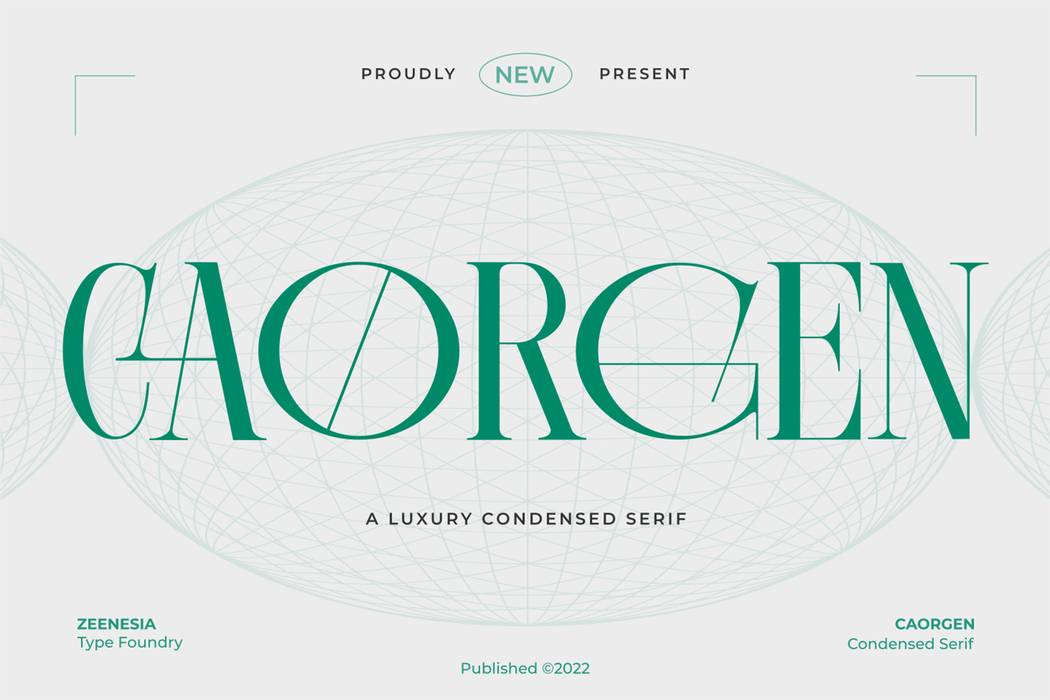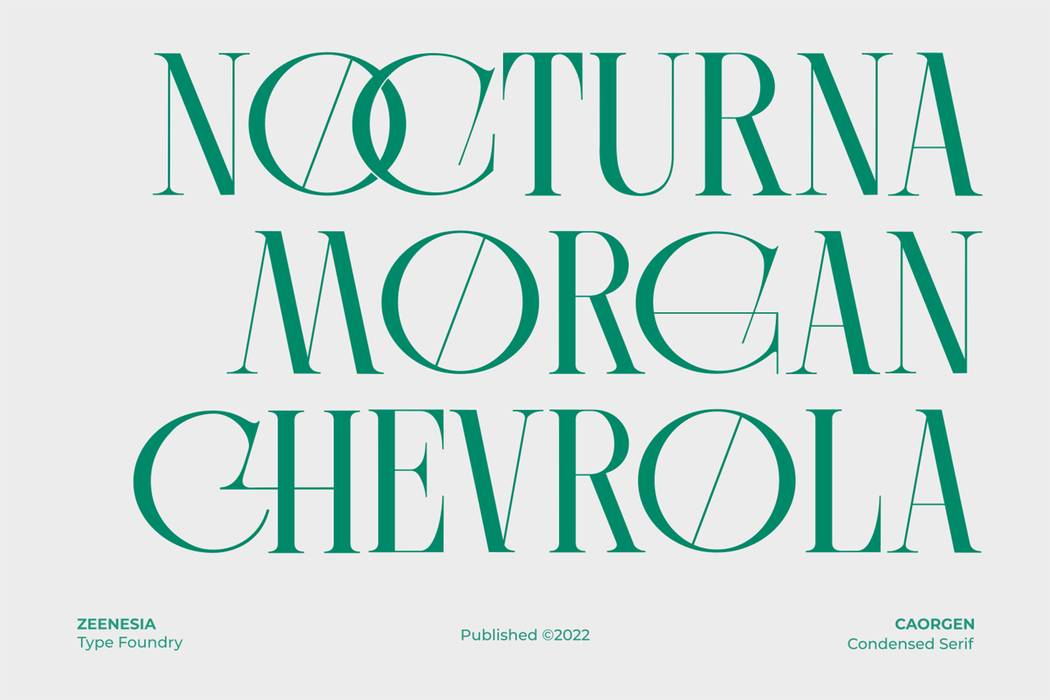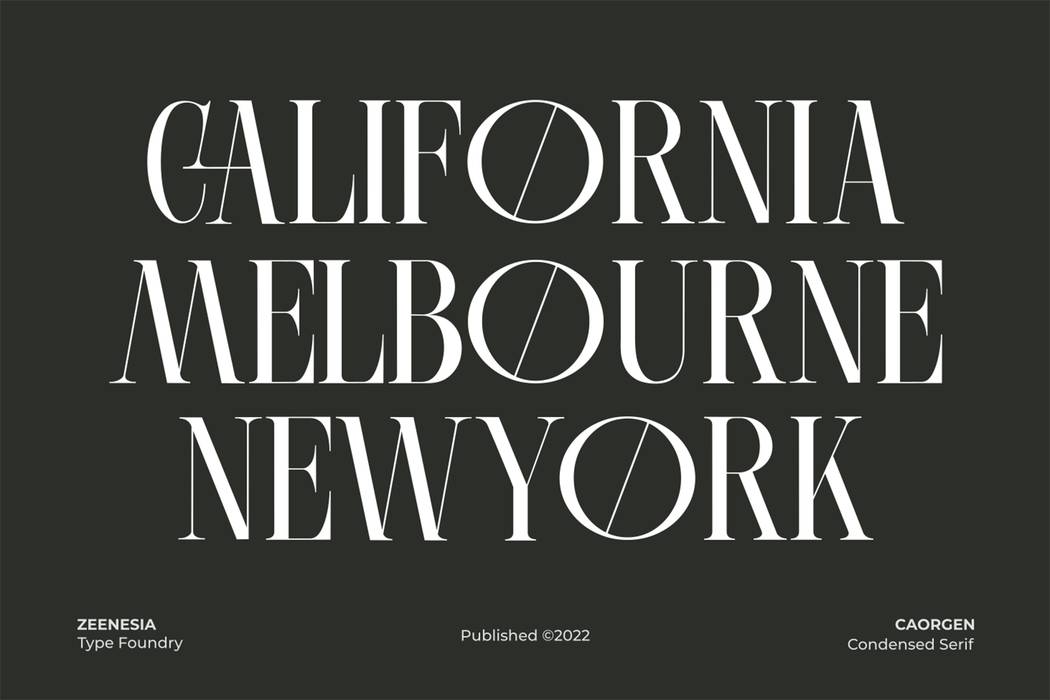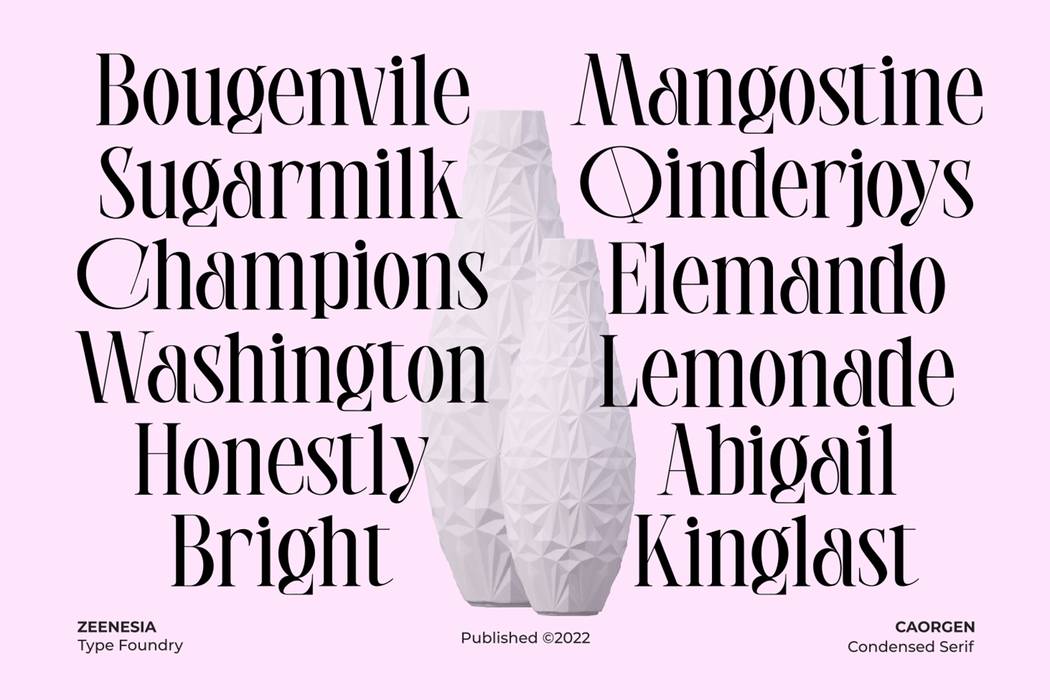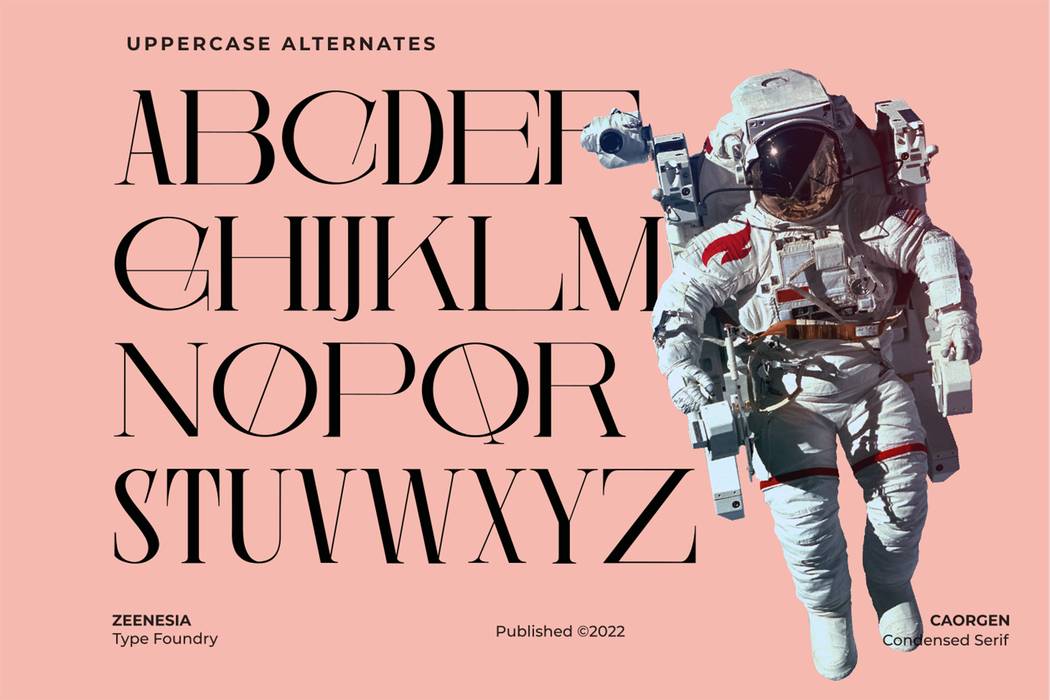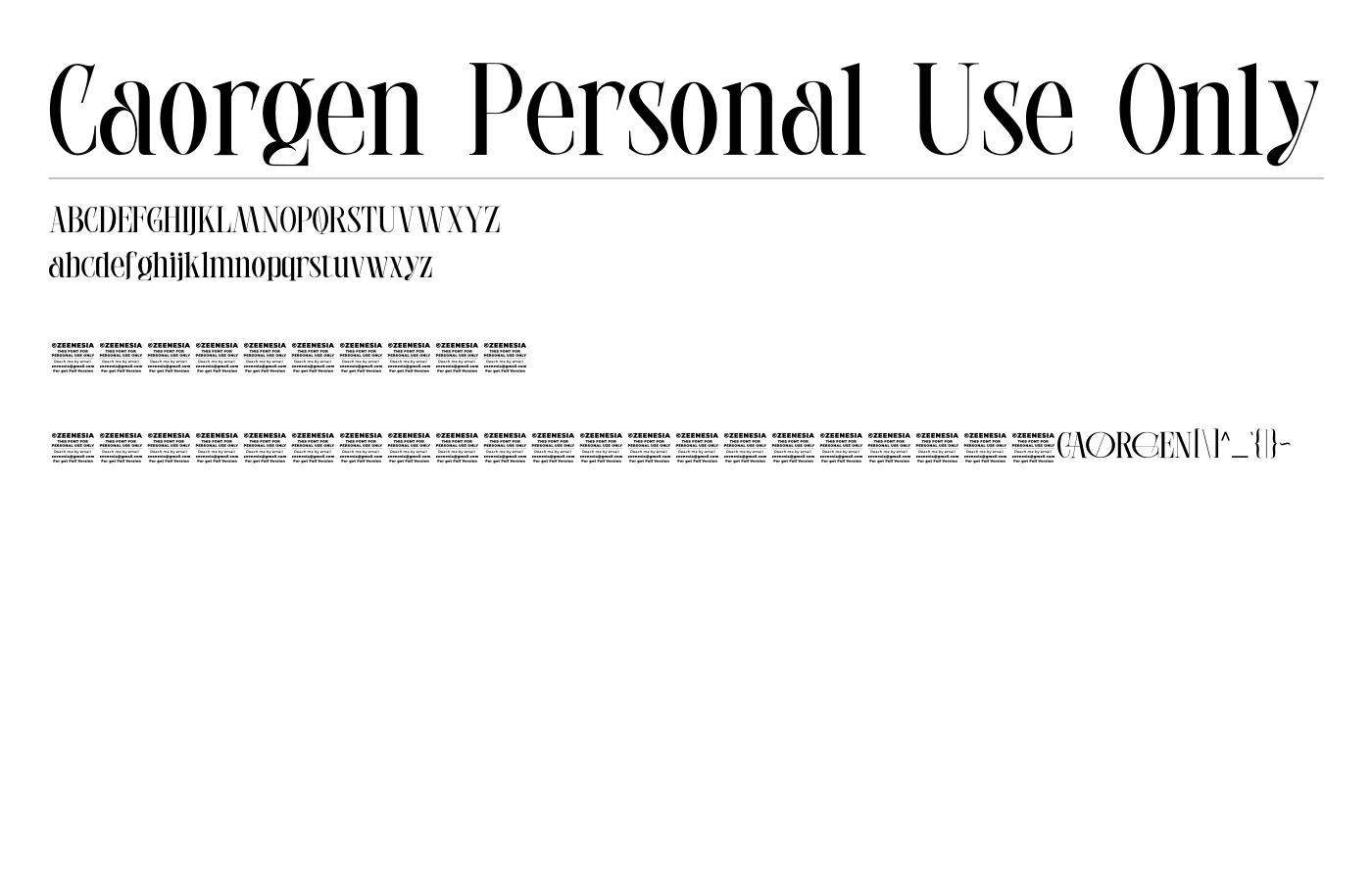
Caorgen is a stylish serif font characterized by its ultra-condensed, elegant letterforms with high contrast between thick and thin strokes, giving it a modern yet vintage flair. Its distinctive shapes and tall x-height make it perfect for creating sophisticated headlines, luxury branding, and editorial designs that demand attention while maintaining a refined aesthetic. This font works especially well in fashion and high-end contexts where a touch of personality and elegance is essential.
Caorgen Font
About Caorgen Font